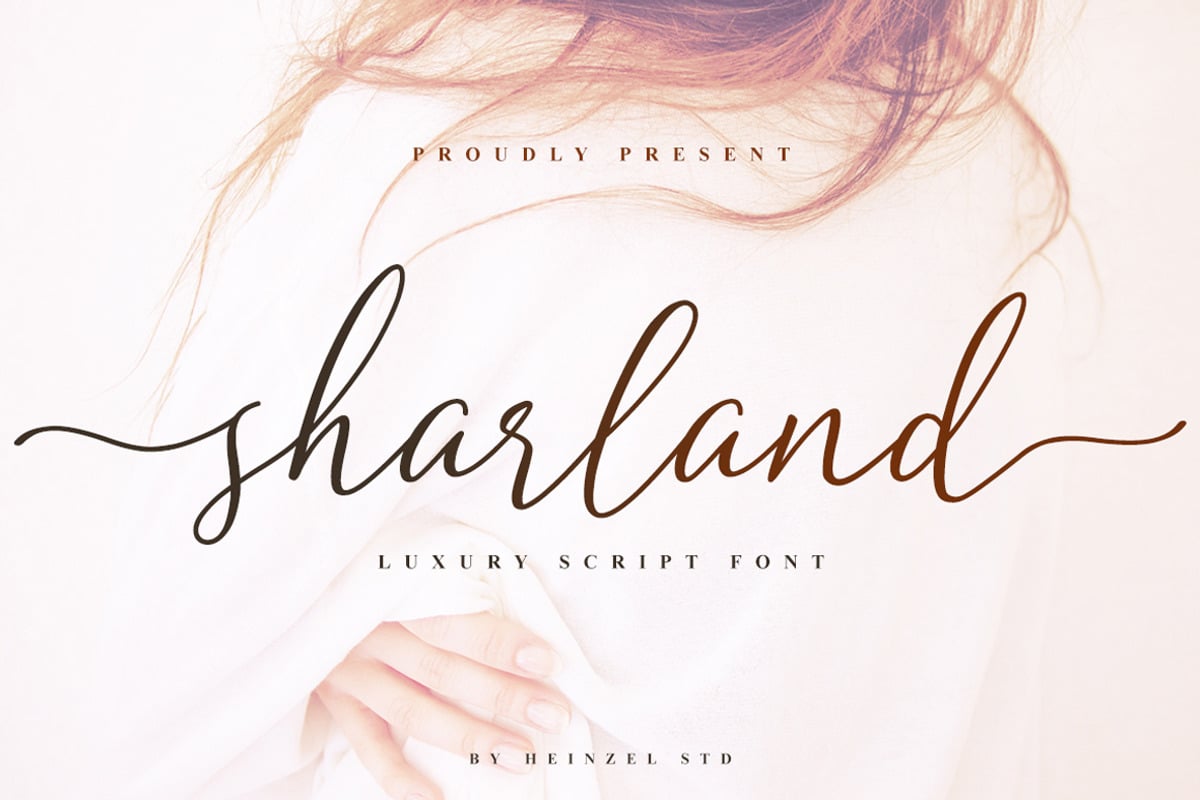
Sharland Luxury Script Font
Sharland is the luxury script font that gives every design an instant touch of elegance and sophistication.
Sharland is a premium handwritten script typeface built on graceful curves and flowing letterforms that feel naturally refined. Its modern calligraphy style strikes the perfect balance between timeless beauty and contemporary polish — classy without feeling dated, stylish without sacrificing readability.
Whether you're crafting a high-end brand identity, designing wedding stationery, or producing fashion and beauty content, Sharland adapts effortlessly. Its stylish swashes and smooth character shapes make it equally at home in large display headlines and elegant supporting text.
Ideal use cases include:
- Logos and luxury brand identities
- Wedding invitations and event stationery
- Feminine branding and beauty product packaging
- Fashion editorials and lifestyle content
- Social media graphics and signature-style typography
- Digital and print media projects
- Ligatures and Alternates
- Beginning and Ending Swashes
- Multilingual Support